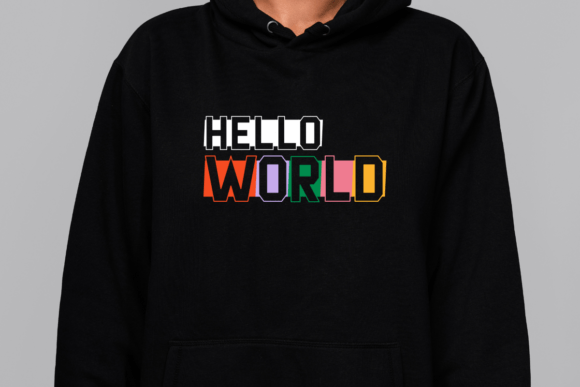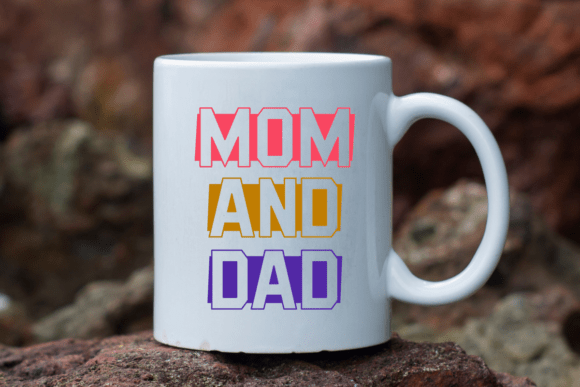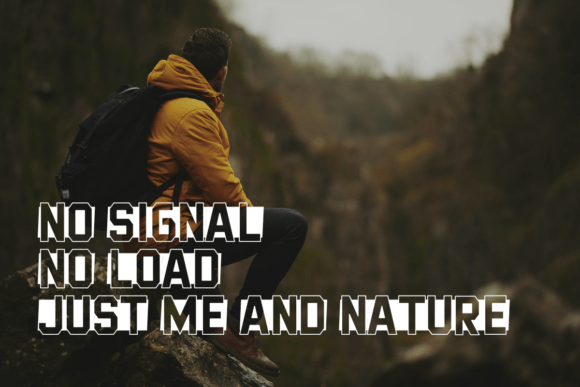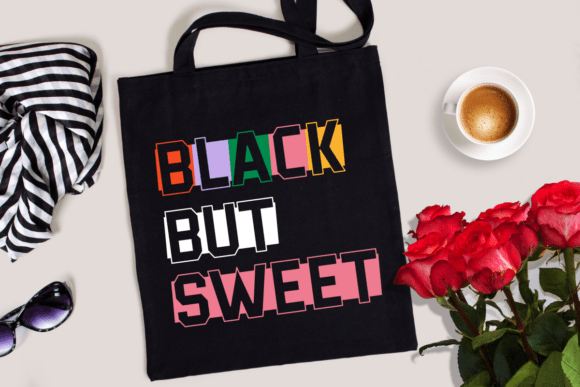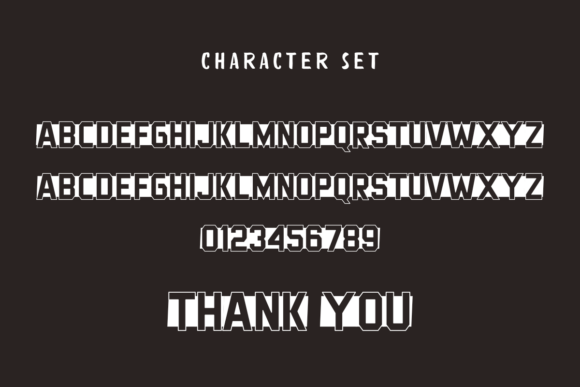
Introduction to Outline Block Font
Outline Block is a varsity, college, sporty style outline font but has a thick block, suitable for printing, quotes, marching, headlines and also suitable for use for brands and others.
Key Features of Outline Block Font